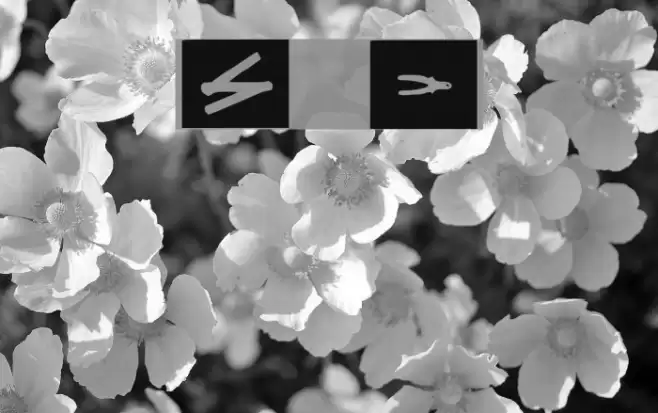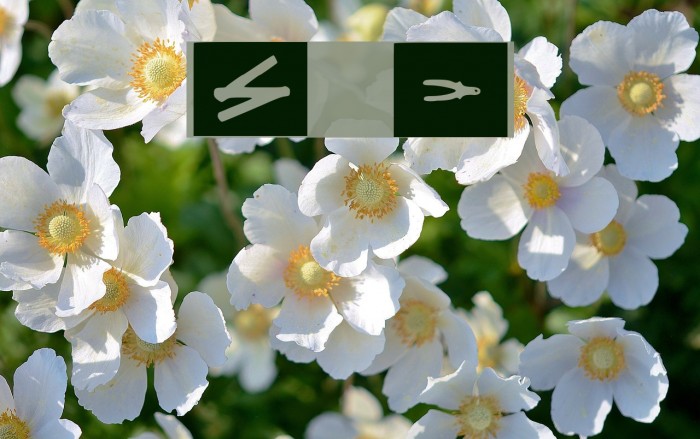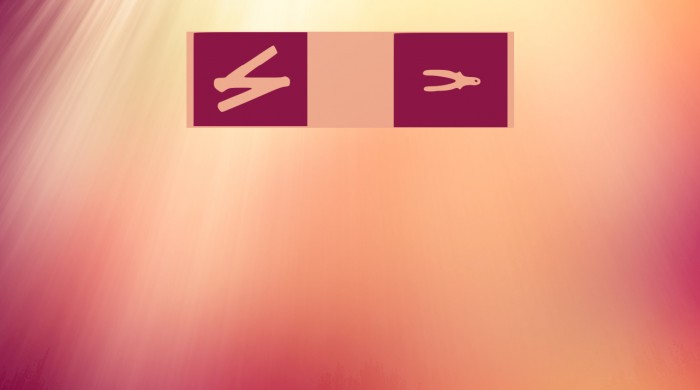
Carpenter Tools Font
Carpenter Tools Description
This set of icons features a variety of carpenter tools, each represented in a minimalist, monochromatic style. The icons are designed with simplicity in mind, using bold, clear lines to depict each tool. The collection includes a hammer, saw, wrench, pliers, and other essential tools, making it ideal for projects related to carpentry, construction, or DIY crafts. The uniformity in design ensures that each icon is easily recognizable, while the consistent use of black and white provides a clean and professional look.
A minimalist icon set depicting various carpenter tools in monochrome from Uncategorized fonts.